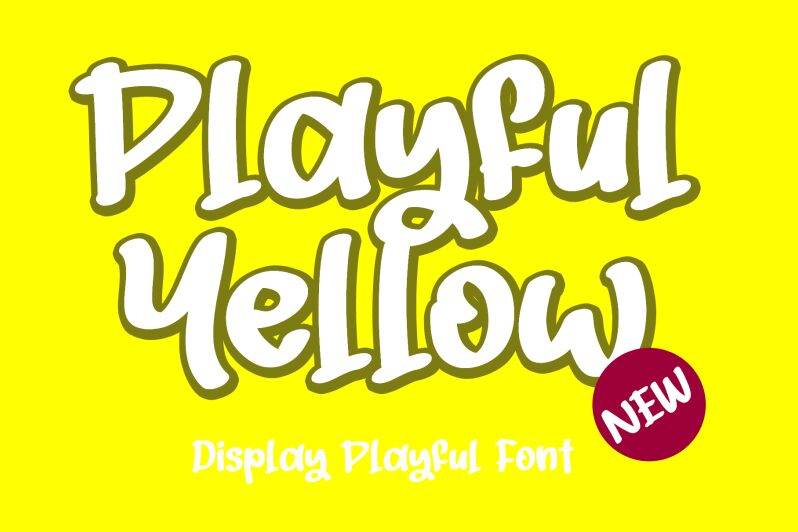
Playful Yellow font by Letterafa Studio is a handwriting style typeface with casually lively rounded characters. Its informal style gives off an energetic vibe needed for youthful and modern design projects. The set is also approachable and friendly which is a key aspect for lively layouts and designs that target a fun audience and appeal to younger age groups.
Playful Yellow has a contemporary style for informal works. Its characters appear friendly and modern to instantly speak to youthful crowds. With all these features present and when paired with its legibility, the font is perfect for headings, playful logos and branding projects, advertisements, product packaging and labels, magazines, and infographics. It can also be used for poster designs, website design, and social media posts.